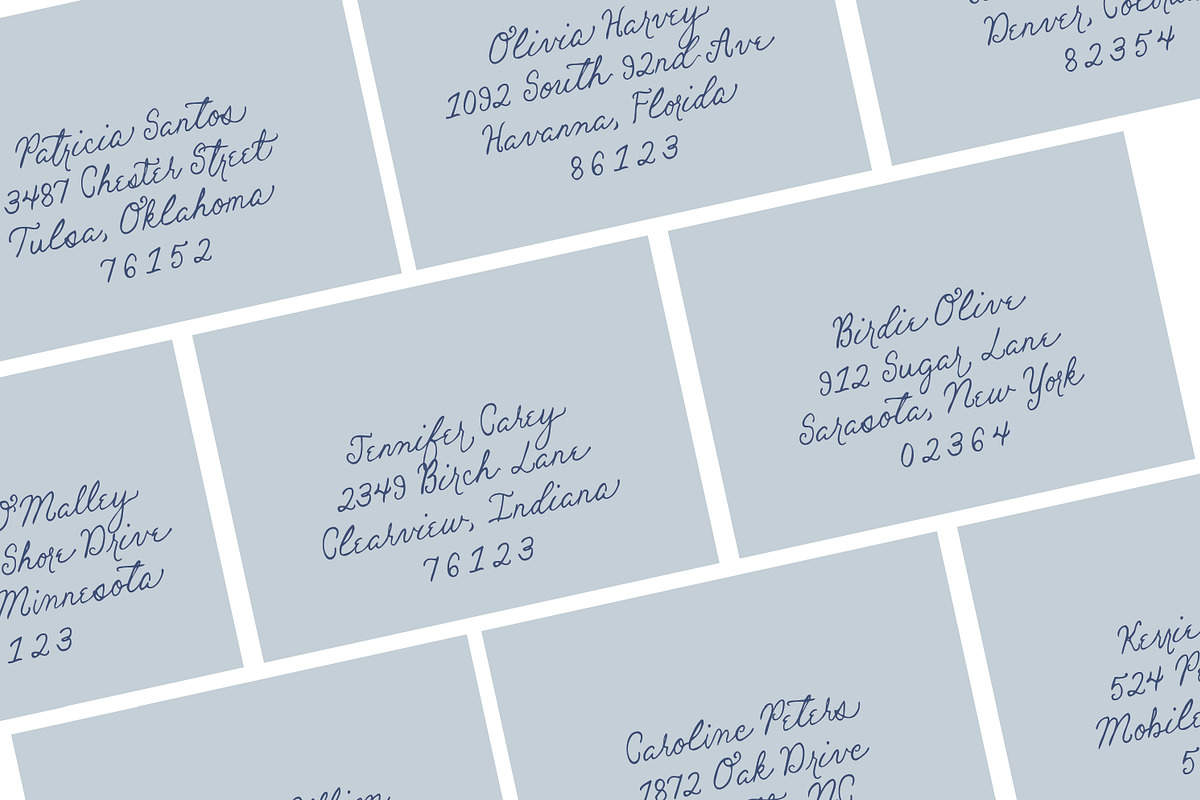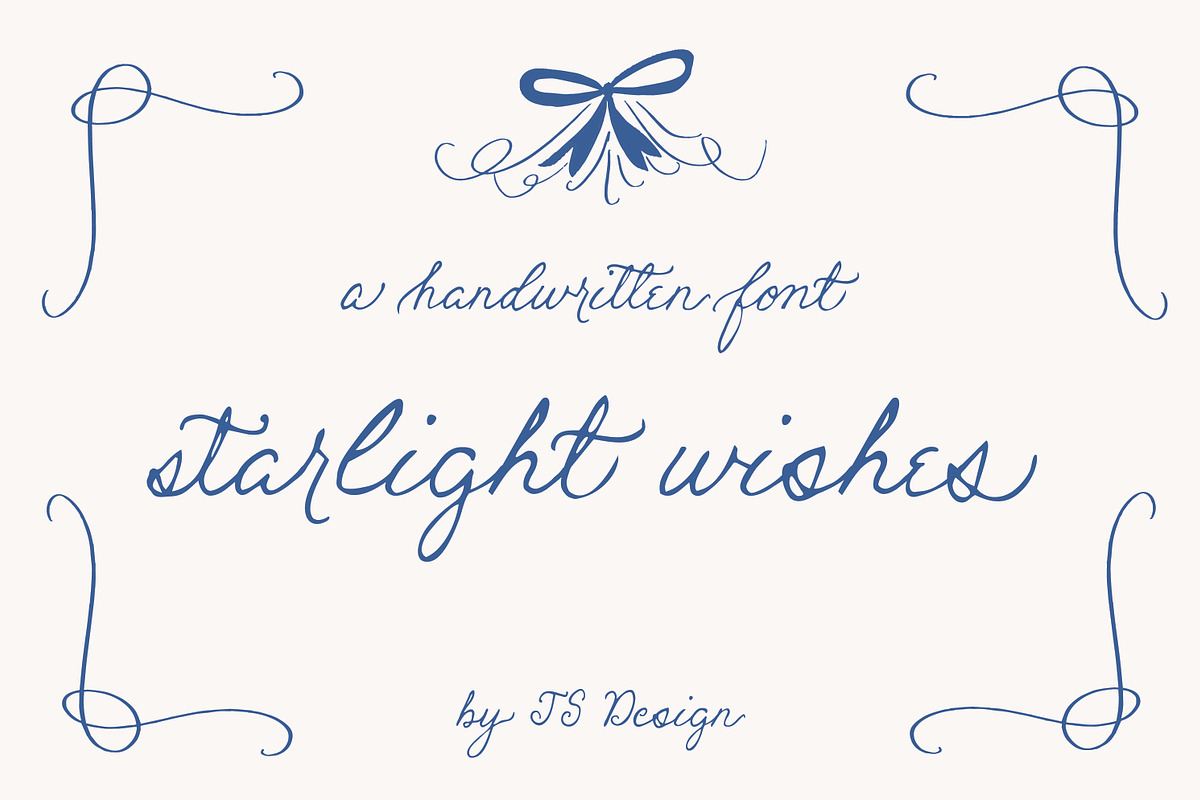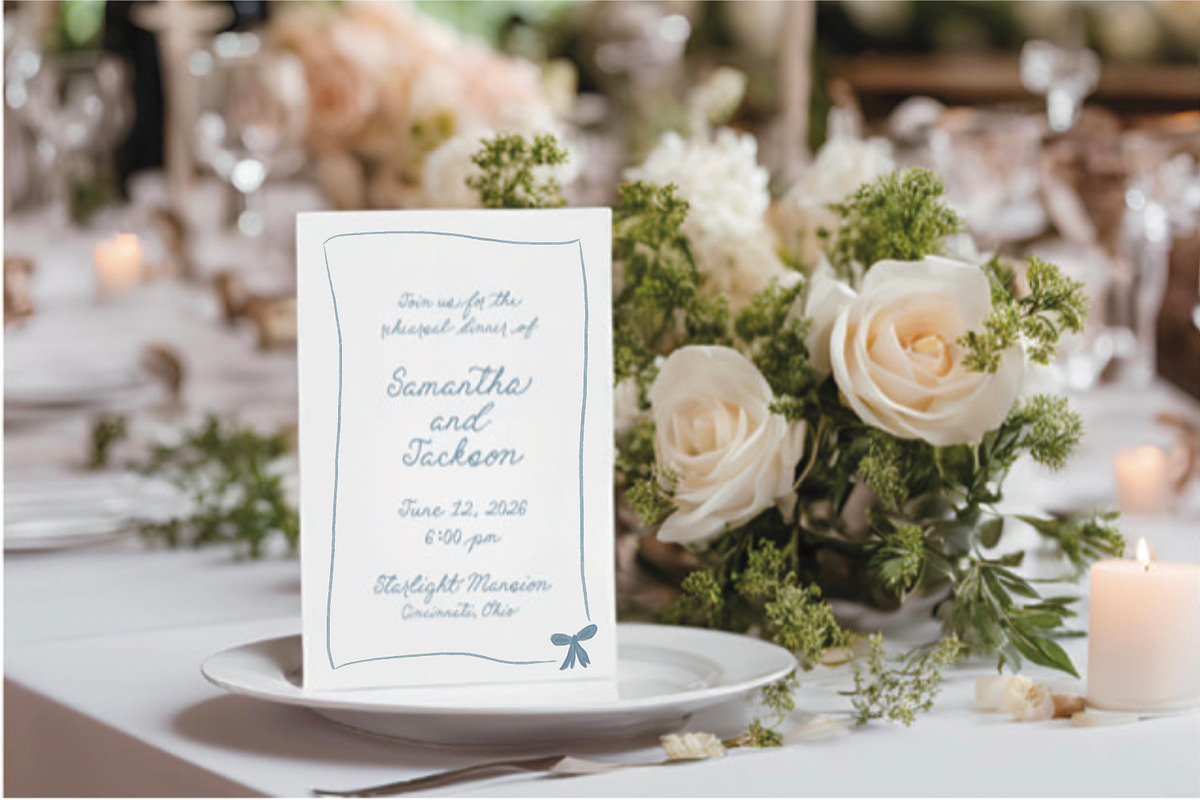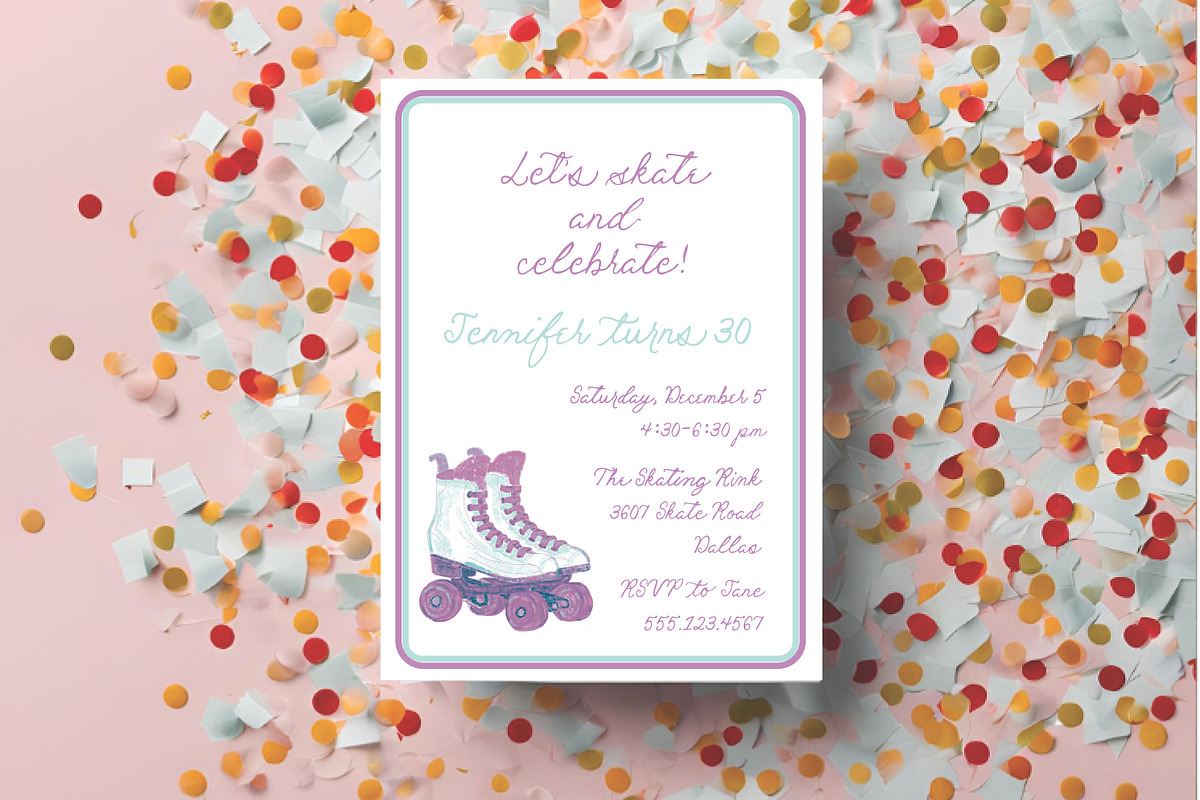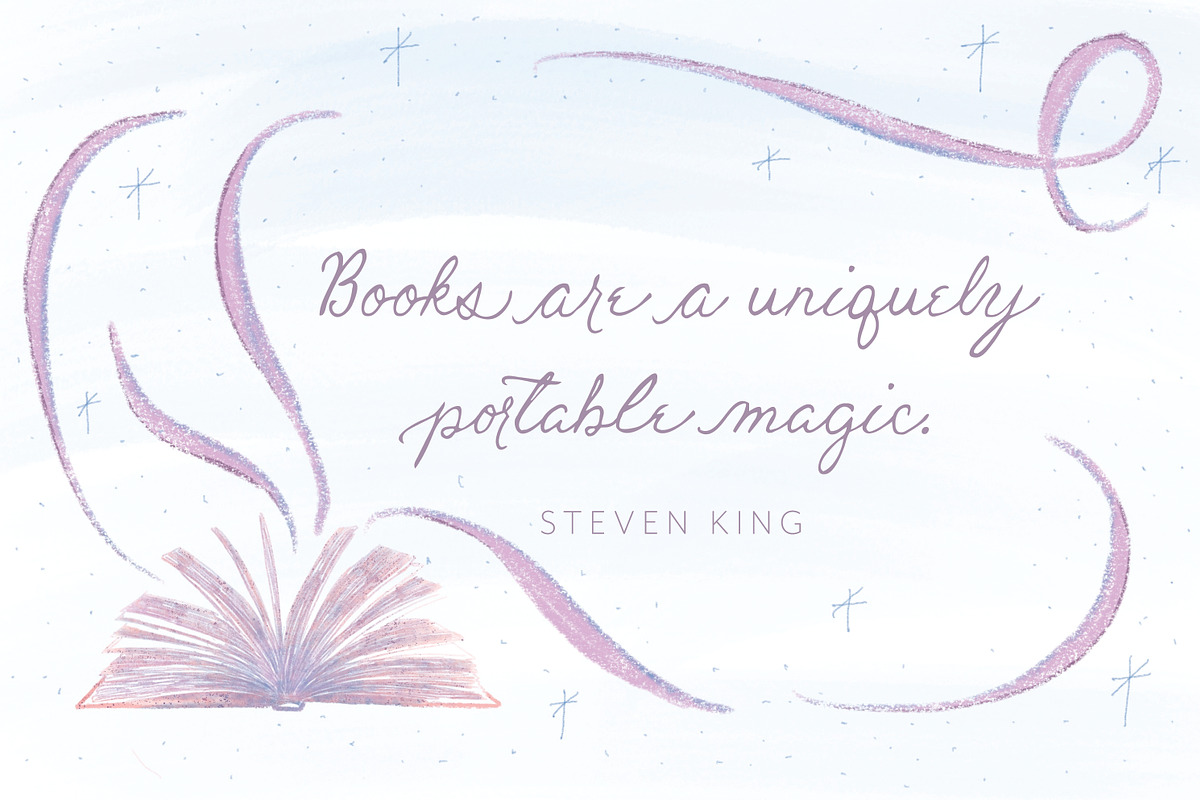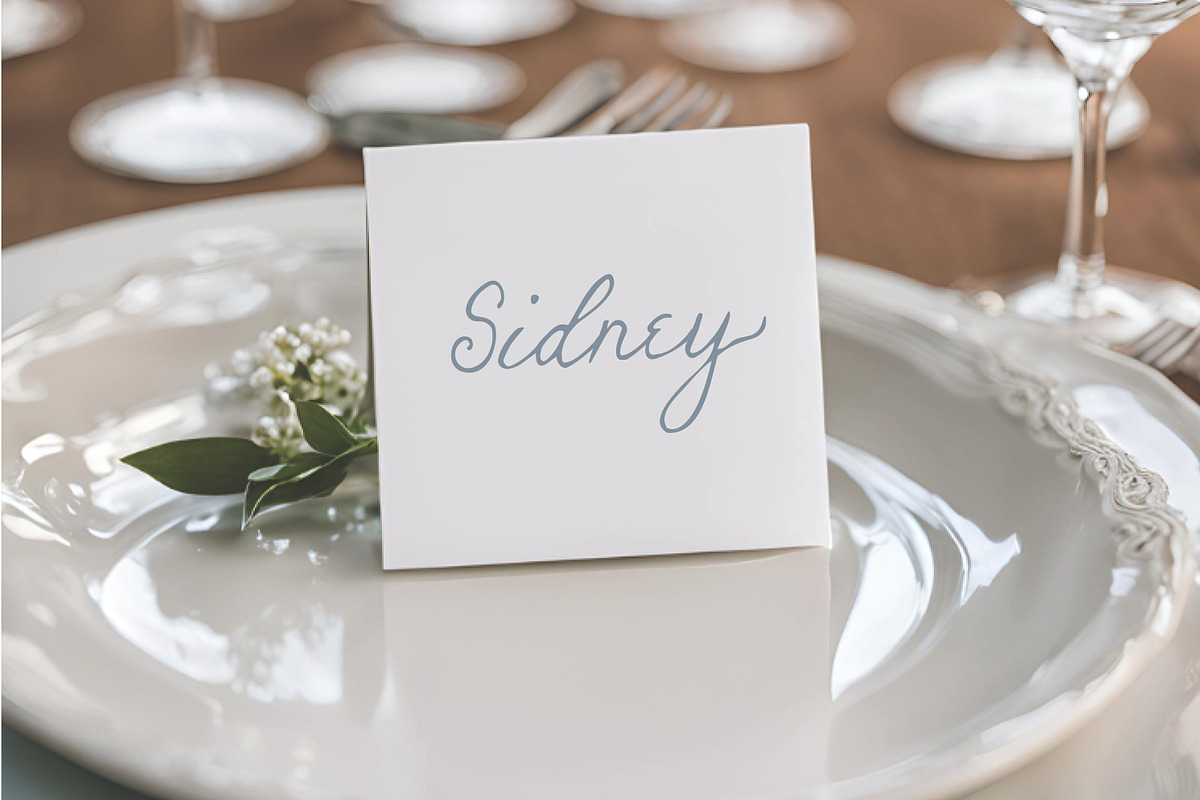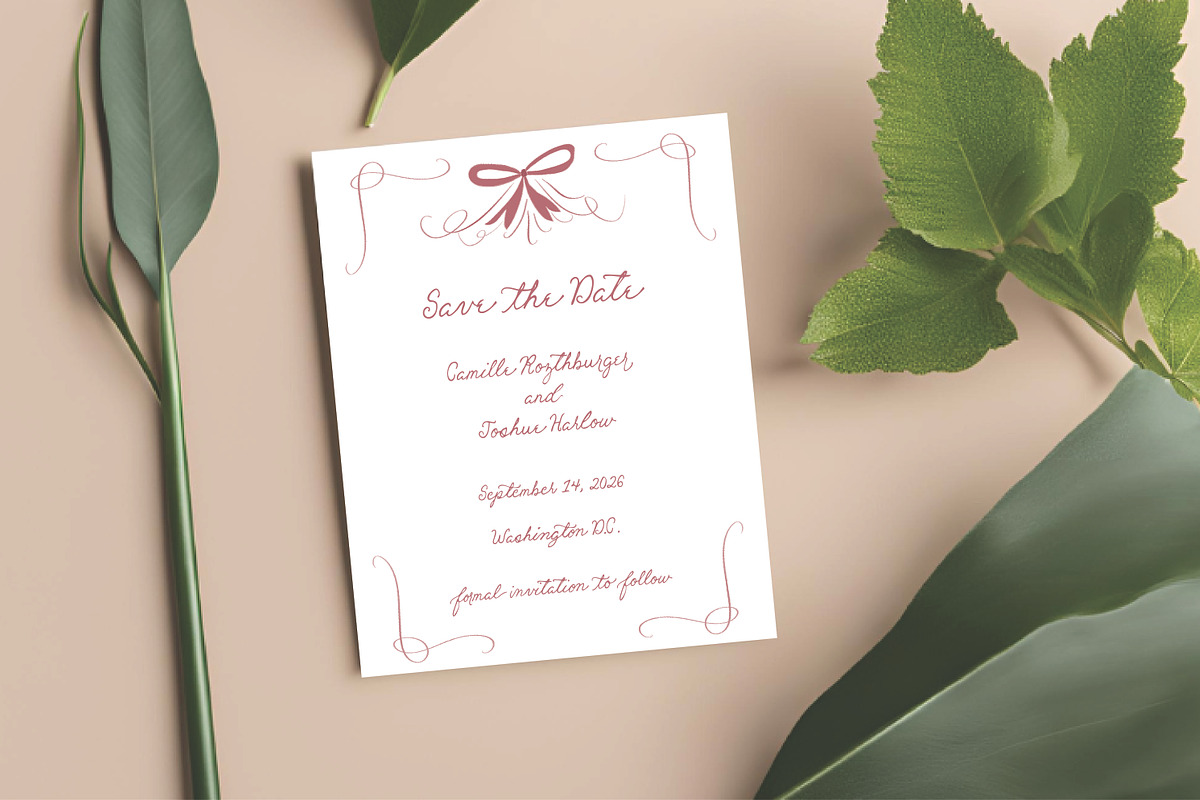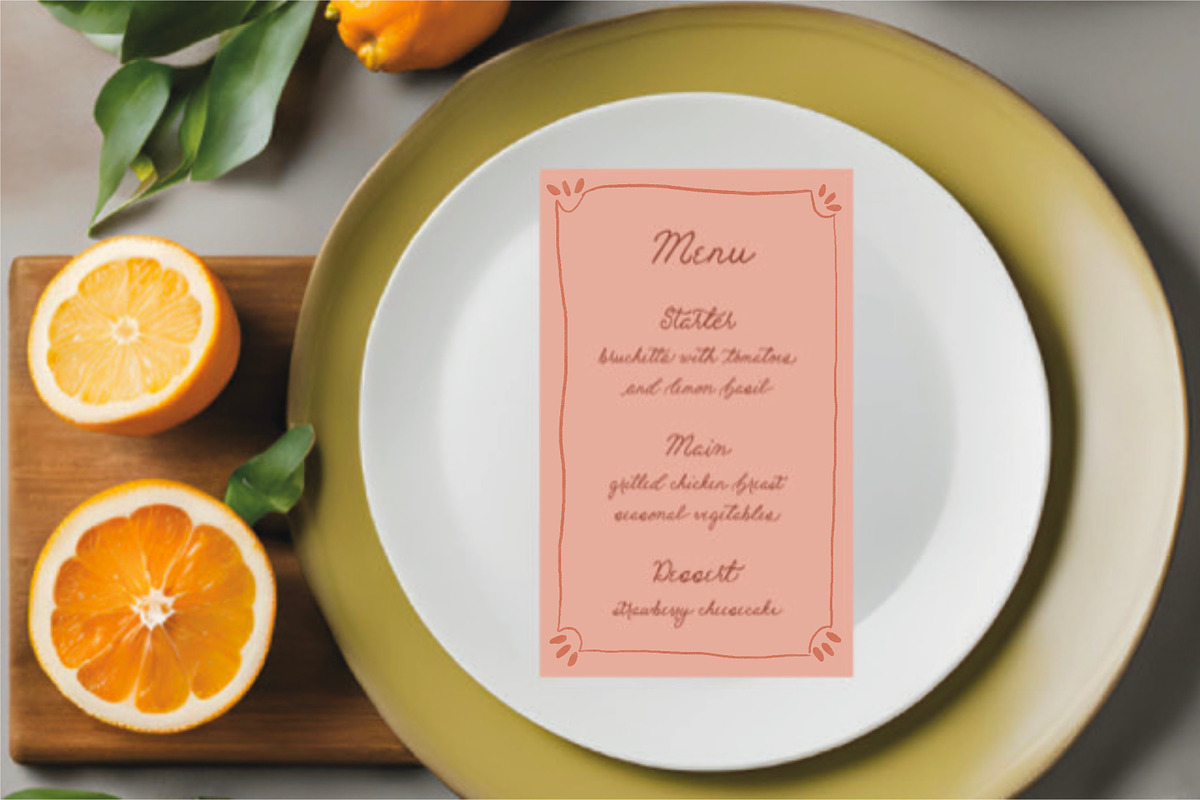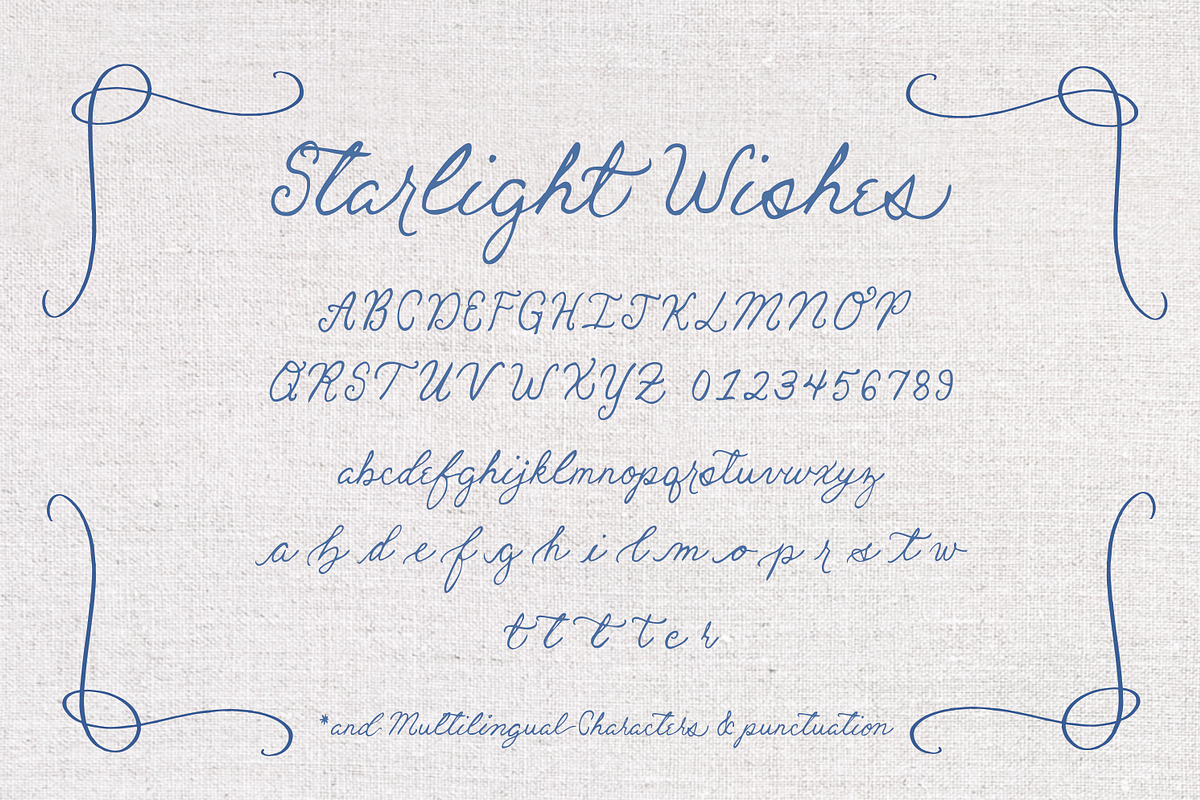
Starlight Wishes-Modern Wedding Font
Starlight Wishes is a hand-written, script font great for on trend weddings, invitations, stationery, websites, logos, packaging, and more. It's readable for addresses, headline text, and signage. The alternate endings, beginnings, and stylistic alternates give this font that modern, handwritten look.
The font is packed with alternate letters, so you can achieve a modern look or more of a swooping cursive look.